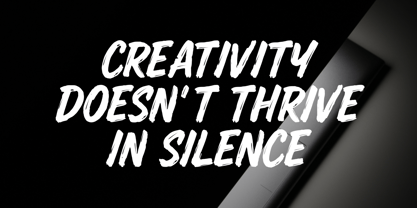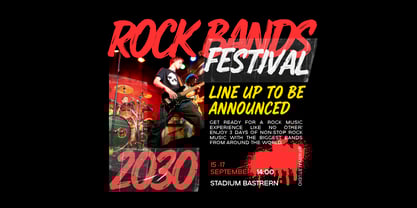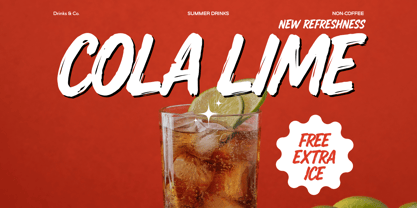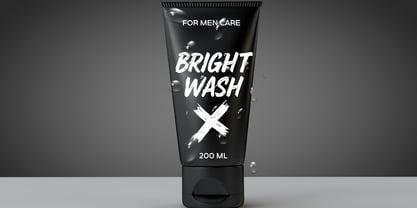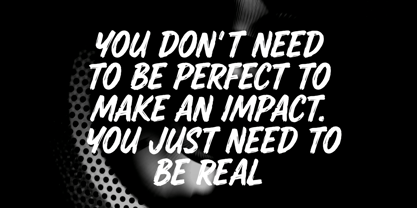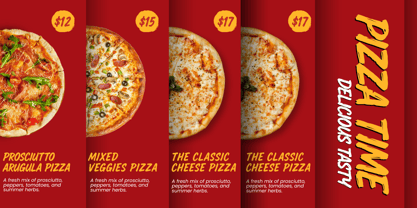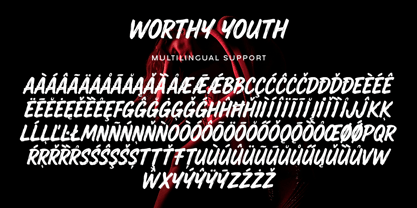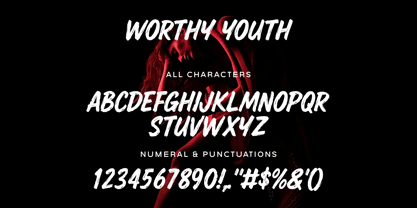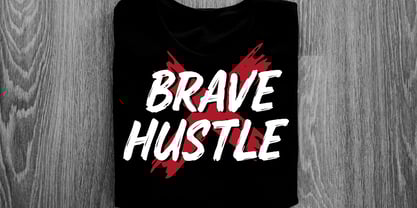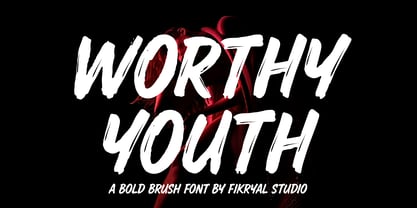
Worthy Youth
Worthy Youth is a bold, all-caps brush font with raw energy and confident strokes — perfect for designs that demand attention.
Crafted with a rebellious spirit and youthful edge, this font delivers a hand-painted aesthetic that’s perfect for posters, streetwear branding, music event flyers, social media graphics, and bold headlines.
The imperfect strokes and dynamic texture give Worthy Youth a wild, expressive feel while maintaining legibility and versatility across various media. Whether you’re designing for urban fashion, edgy campaigns, or creative personal projects, this font speaks loud and clear.
Perfect For:
• Streetwear branding & apparel design
• Music event flyers & concert posters
• Skateboard & urban lifestyle graphics
• Bold packaging design
• Album covers & merch design
• Motivational quotes with attitude
• Grunge-style logos & titles
• Youth-focused advertising campaigns
• Creative social media content
• Handcrafted editorial layouts
Features:
• All Caps
• Bold Brush Style
• Multilingual support
• Ideal for headlines, apparel, packaging, branding & more
Give your designs a fresh, artistic feel with Worthy Youth.